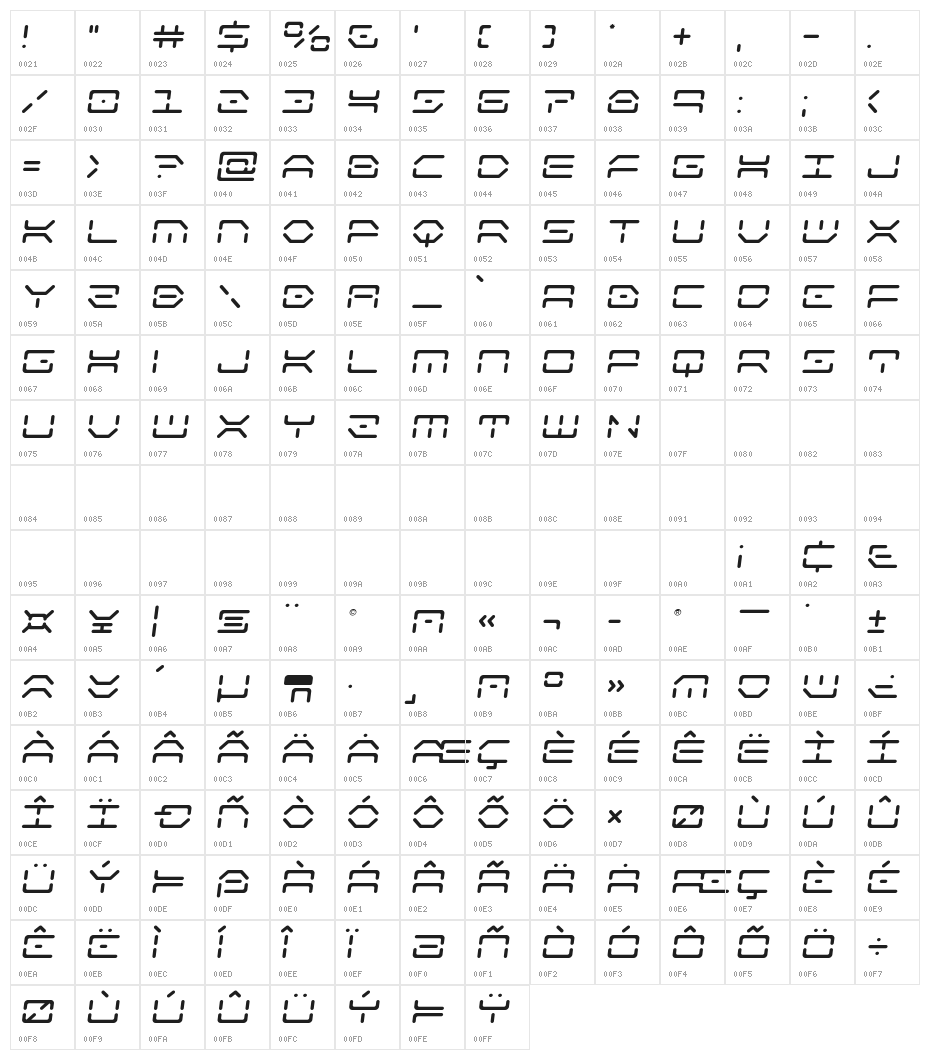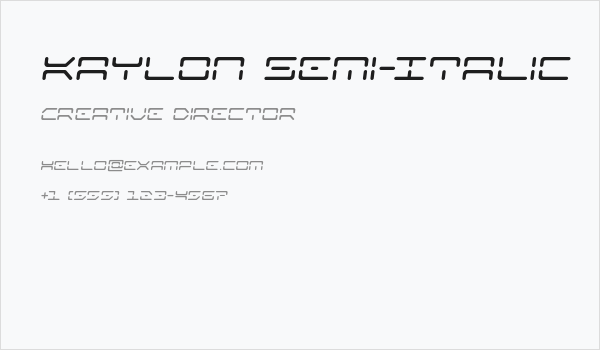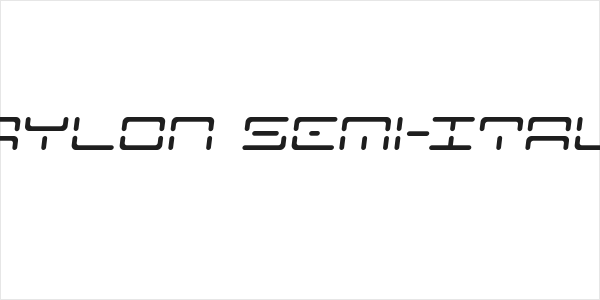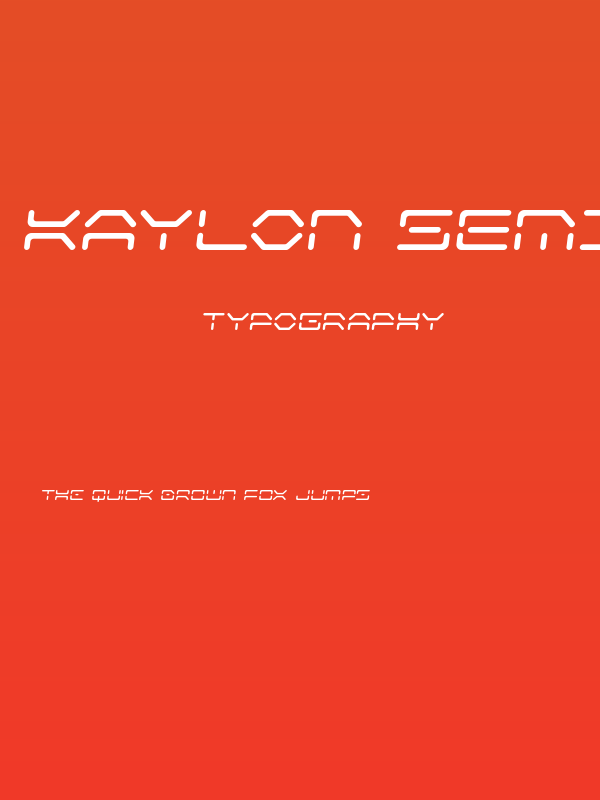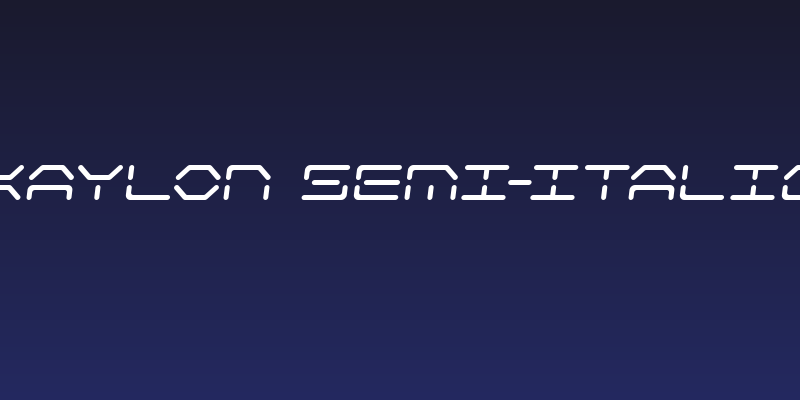
Kaylon Semi-Italic Font
Kaylon Semi-Italic Description
This font features a futuristic and geometric design, characterized by its hollow, stencil-like appearance. The characters are constructed with consistent line thickness, creating a uniform and modern look. The angular and rounded elements blend seamlessly, giving it a tech-inspired aesthetic. The uppercase and lowercase letters maintain a cohesive style, while the numerals and special characters complement the overall design. Its unique structure makes it stand out, suitable for projects that require a contemporary and innovative touch.
| Proposed Projects | Ideal for technology branding, sci-fi themed projects, modern posters, and innovative product packaging. |